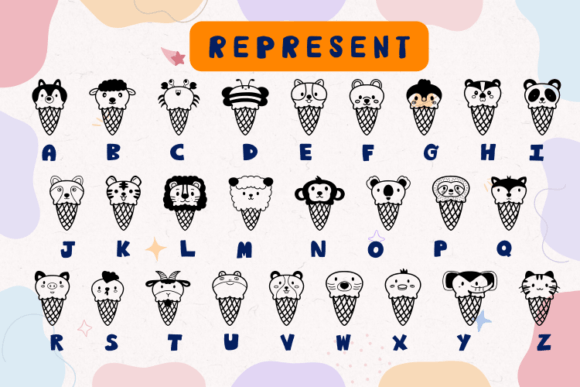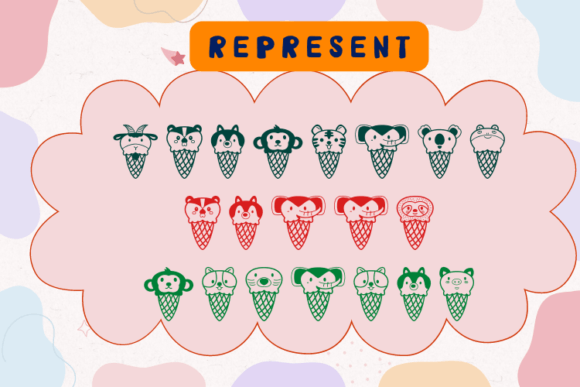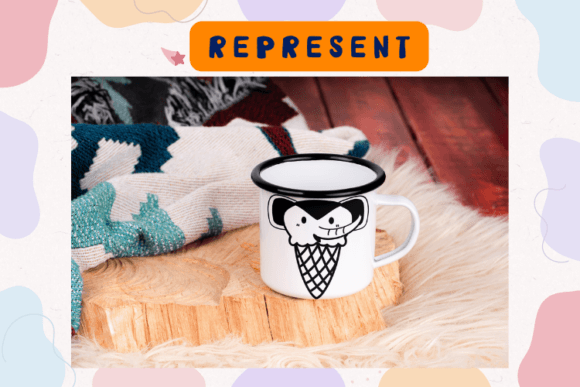
Have you ever found yourself stuck in a creative rut, staring at a blank page or screen, searching for that perfect spark to bring your project to life? We’ve all been there. But what if I told you that the solution lies in a tiny, adorable font that’s sure to put a smile on your face and add a dash of personality to your designs?
Meet Cute Animal Ice Cream Font, a charming hand-drawn dingbats font designed to make your creative projects pop. Perfect for planners, craft projects, digital design, and more, this font is a treasure trove of cute animal illustrations that will bring joy to your designs. Whether you’re a seasoned designer or a crafty enthusiast, the Cute Animal Ice Cream Font is a valuable addition to your toolkit, guaranteed to add a touch of whimsy and personality to your work.
Cute Animal Ice Cream Font Key Features
- Font Family: Cute Animal Ice Cream Font is a unique, hand-drawn font family designed to resemble ice cream and cute animals.
- Unique Characteristics: Features cute animal and ice cream-inspired characters, including emojis and symbols, to add a playful touch to designs.
Cute Animal Ice Cream Font Review
I recently had the chance to work with the “Cute Animal Ice Cream Font” and I must say it’s a delightful addition to any design project. ✨ The font’s playful and whimsical style is perfect for child-friendly content, food-related brands, or anything that needs a dash of sweetness. The intricate details and adorable animal illustrations make it a great choice for social media graphics, stickers, or even merchandise.
Here are some of the font’s strengths:
- Highly customizable: The font comes with various colors, patterns, and textures that can be easily applied to create unique designs.
- Fun and versatile: Suitable for a wide range of projects, from food trucks to children’s book illustrations.
- Comprehensive character set: Includes a wide range of punctuation marks, numbers, and special characters.
- ⚠️ Limited font sizes: Some of the animal illustrations might get lost when scaling the font too large or too small.
- ⚠️ Font complexity: The intricate details might make it challenging to pair with other fonts or adjust the spacing.
Overall, I’m impressed with the “Cute Animal Ice Cream Font”. While it may have some limitations, its unique style and versatility make it a great addition to any designer’s toolkit. With some careful consideration and planning, this font can help bring your designs to life and capture the hearts of your audience.
Use the Cute Animal Ice Cream Font to add a playful and whimsical touch to your designs. It’s perfect for creating eye-catching social media posts, flyers, and advertisements that appeal to a younger audience. Experiment with different font sizes, colors, and combinations to create unique and engaging designs.
The Cute Animal Ice Cream Font is ideal for designs that require a fun and youthful vibe. Some common use cases include:
– Social media posts and ads
– Flyers and brochures
– Children’s party invitations and decorations
– Food and beverage branding
– Fashion and lifestyle advertising